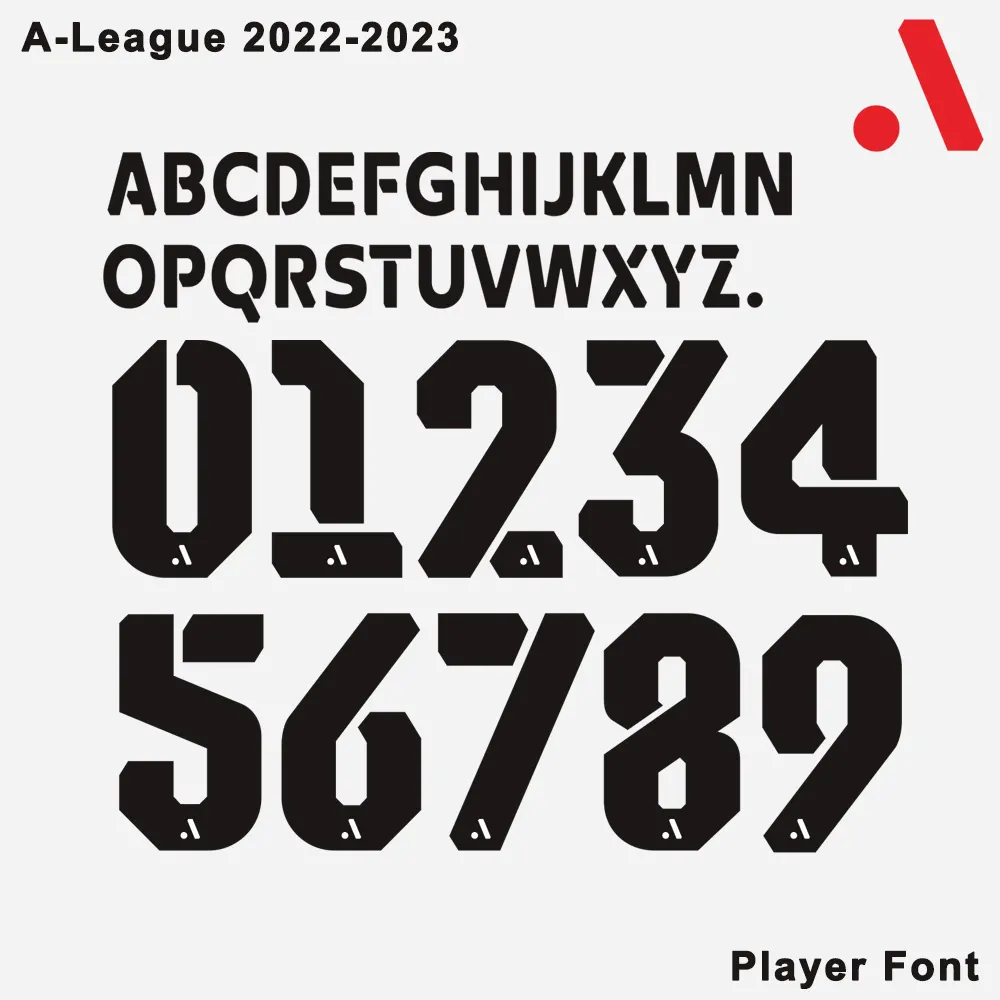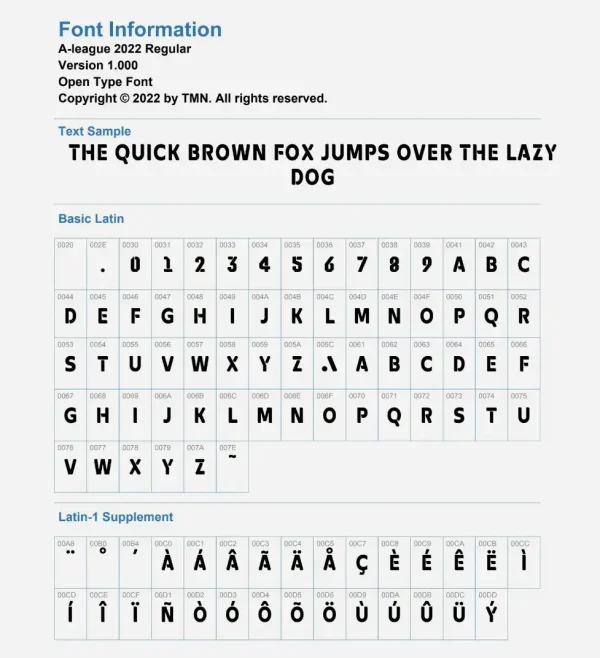
Standardize your designs with the clean, modern aesthetic of the A-League 2022-2023 Kit Font.
The 2022-23 A-League season utilized a streamlined typography set designed for maximum clarity on the pitch and on broadcast. Its rounded edges and balanced weight make it one of the most versatile fonts in modern sports. Whether you are customizing a kit for Sydney FC, Melbourne Victory, or Perth Glory, this font provides the official league-wide standard.
Complete Character Set: Features the full A-Z uppercase alphabet and the distinct 0-9 number set used by the A-League.
Official Proportions: Meticulously designed to match the league’s sizing and spacing regulations.